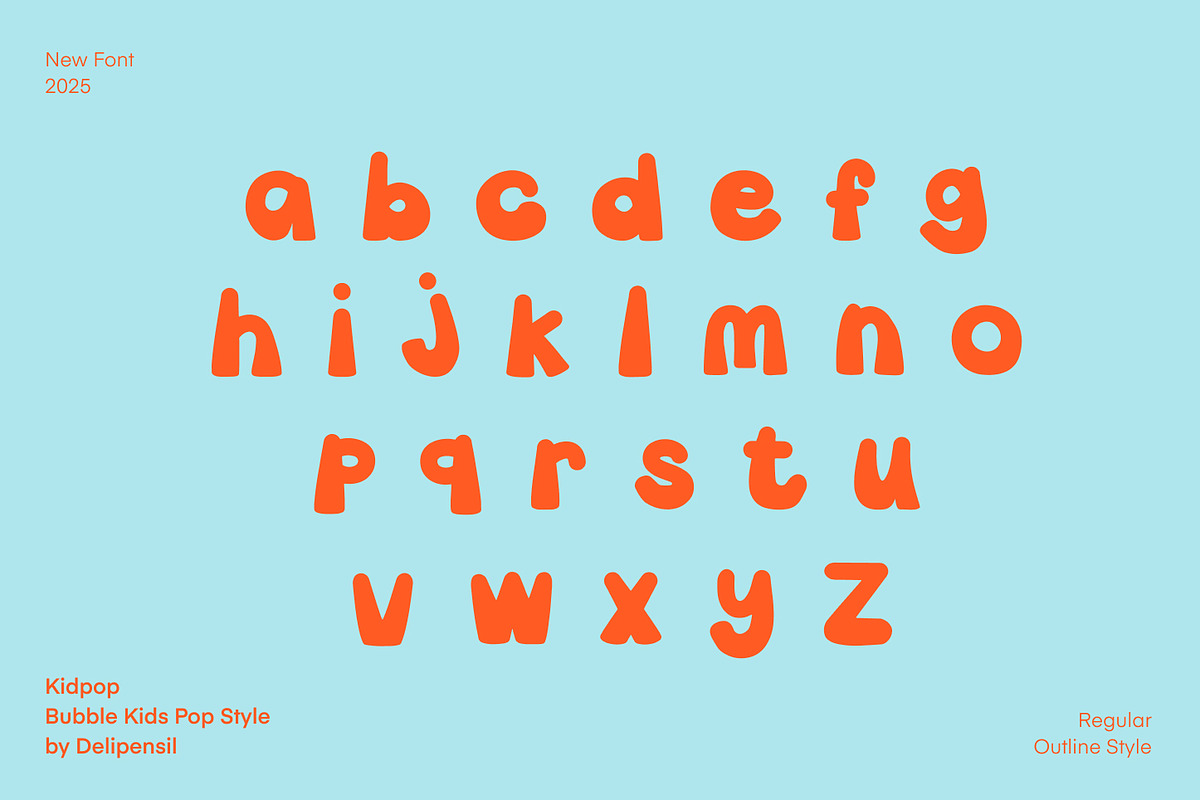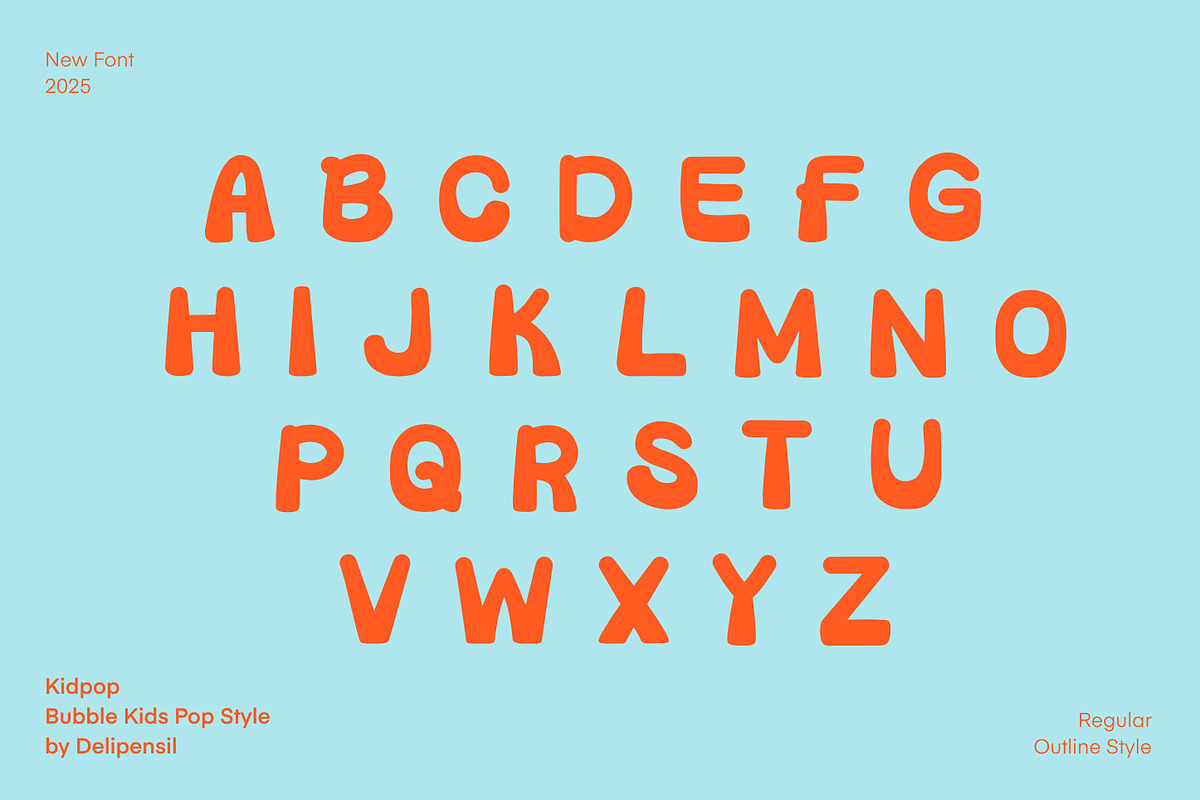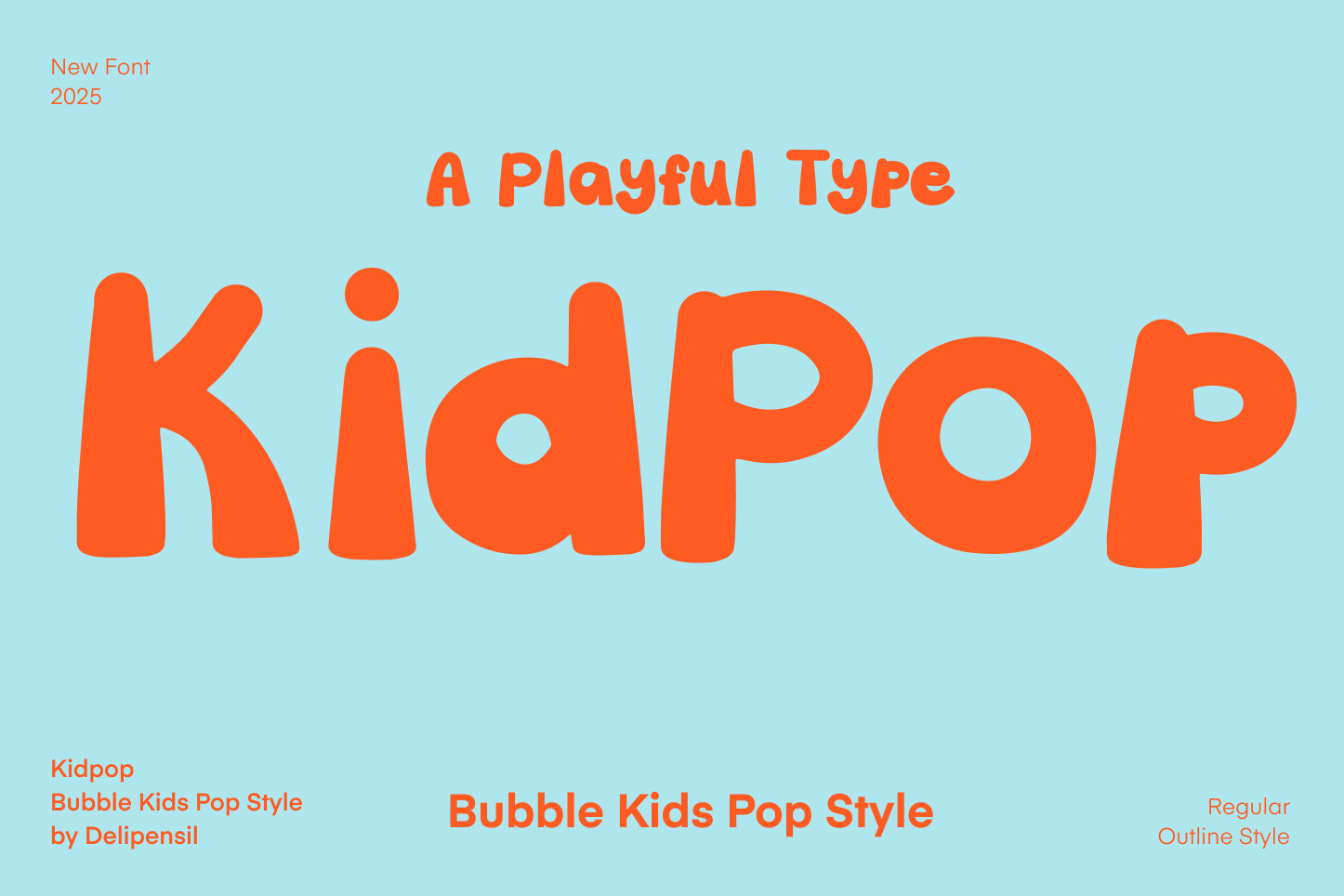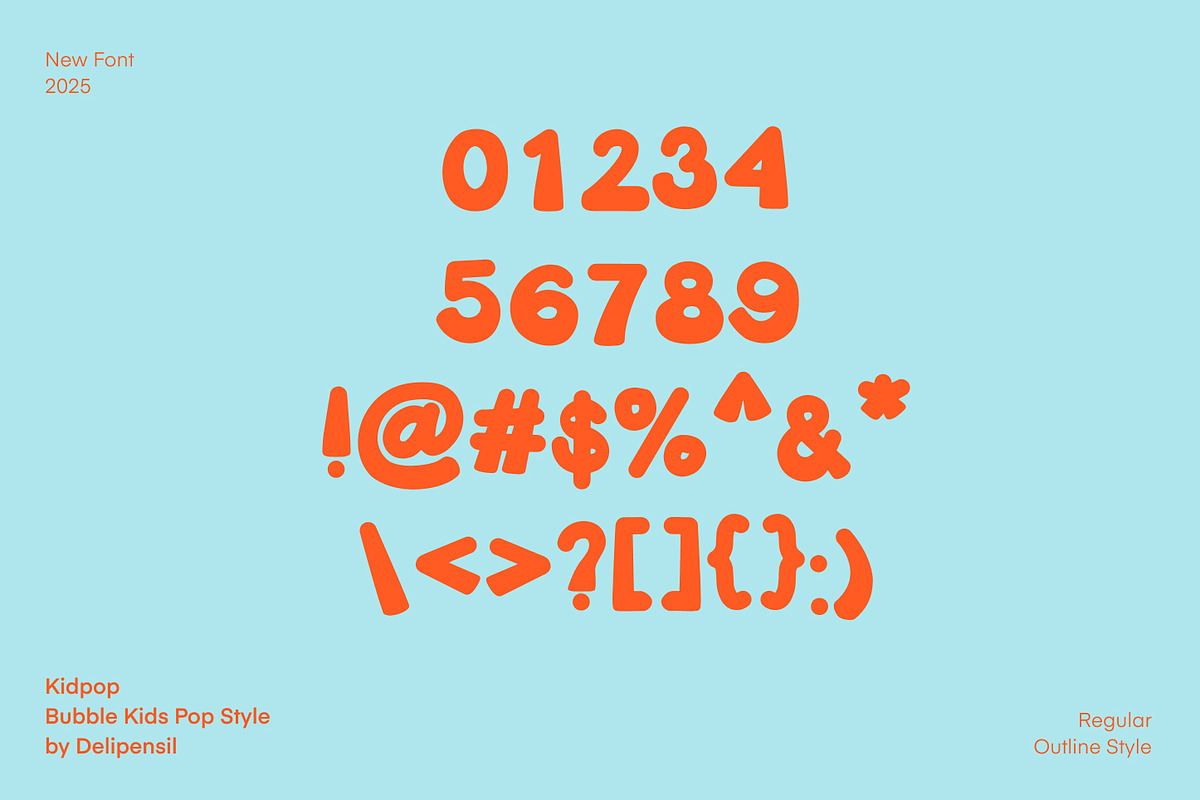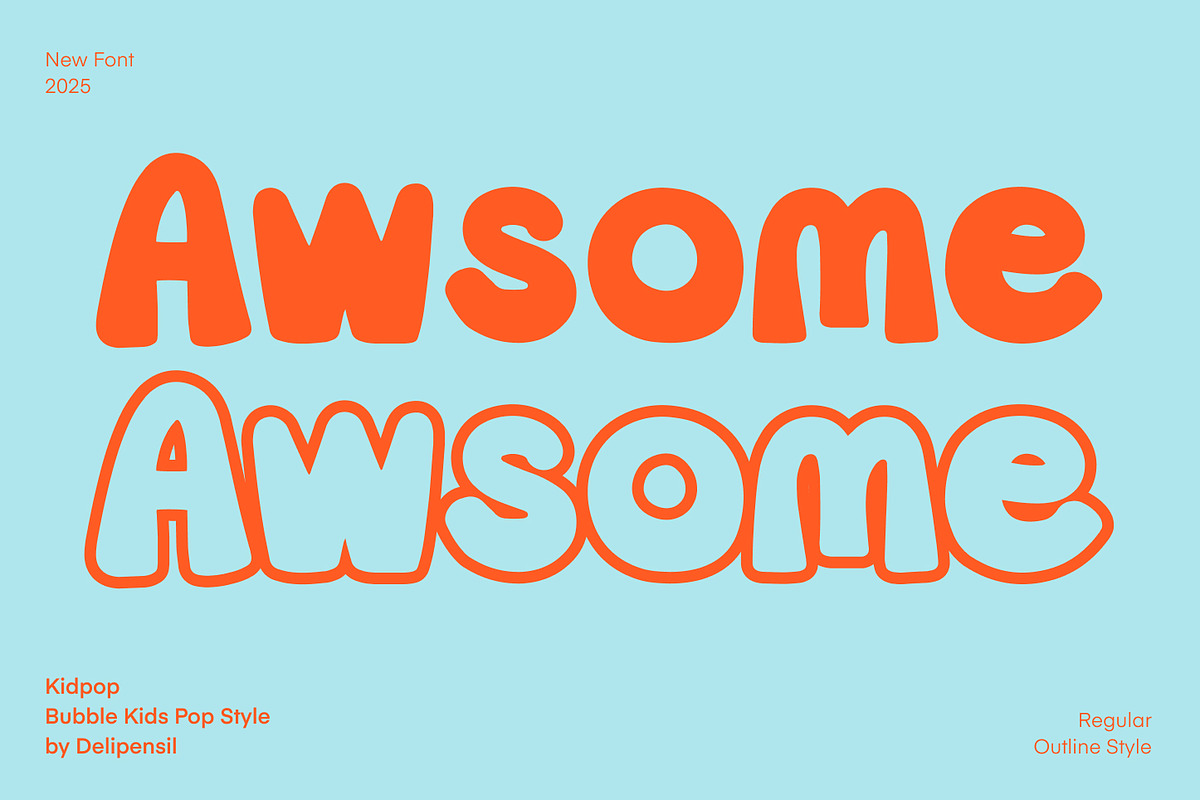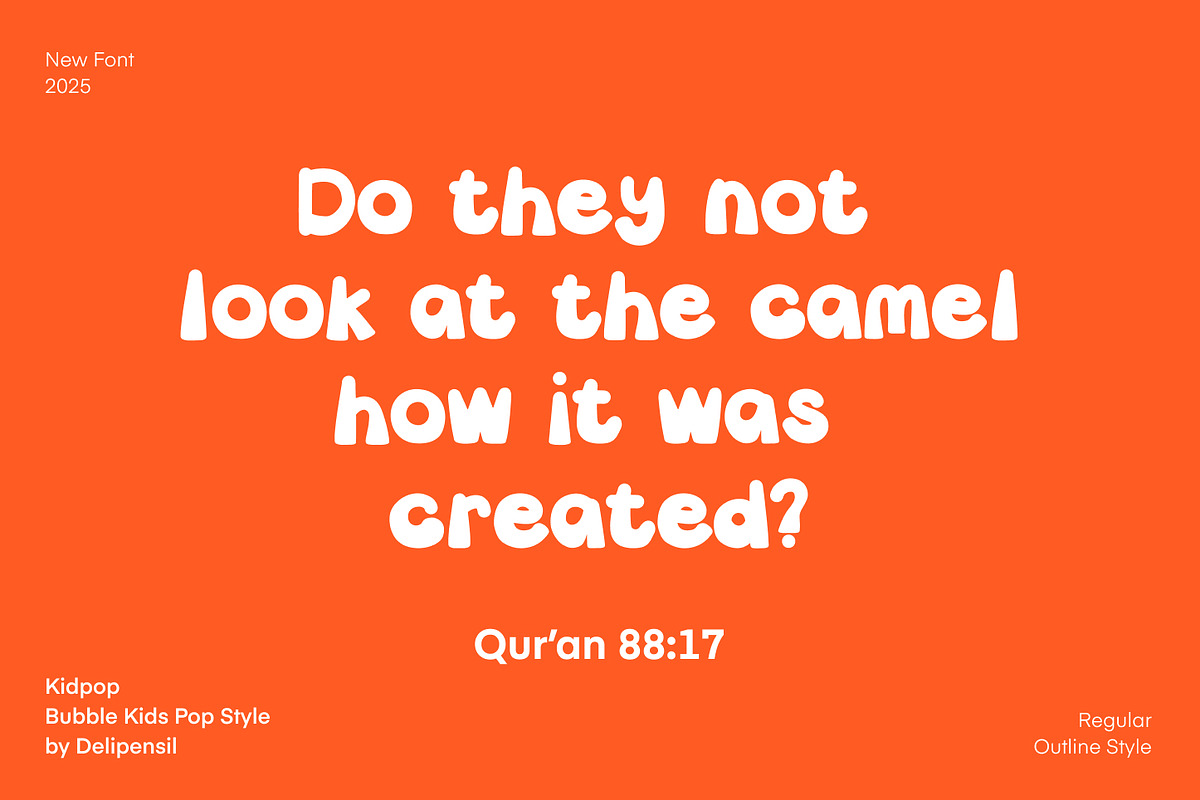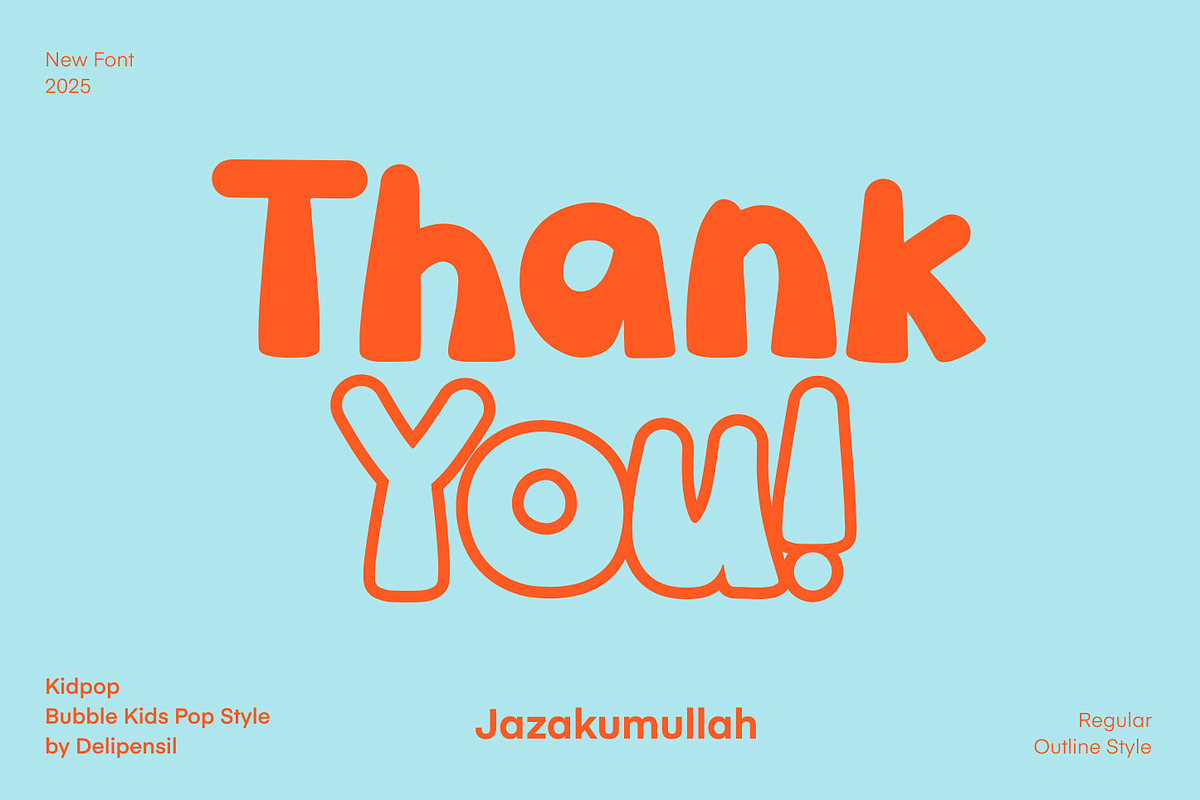
Kidpop - Playful Display Font
Kidpop – Playful Display Font
Bismillah, Kidpop is a cheerful and energetic display font designed to bring fun, imagination, and personality into any creative project. Its rounded, expressive letterforms make it perfect for designs that need a bright and friendly touch.
- Kids-themed designs
- Fun posters & banners
- Playful logos and branding
- Storybooks & illustrations
- Educational materials
- Colorful social media content
- Clean and consistent letter design
Add a vibrant and joyful feel to your work with Kidpop — the font that makes every word come alive!